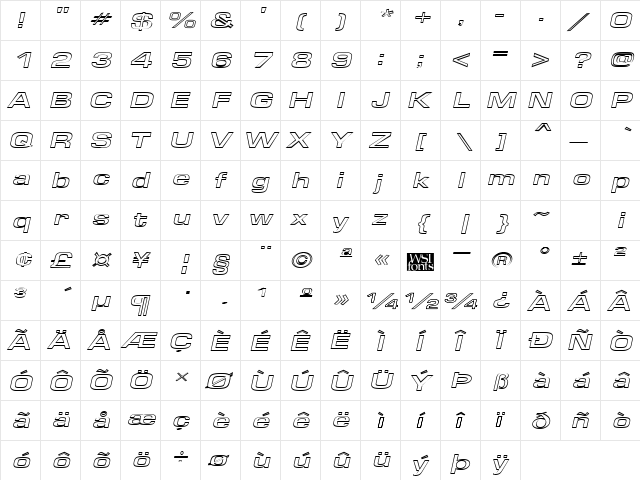
EuroseWideHollow Italic
Design Context for EuroseWideHollow Typeface
EuroseWideHollow offers clean, dependable letterforms without strong stylistic allegiance, making it a practical choice for designers who need flexibility. The dynamic lean of this cut emphasises speed and emphasis in any layout.
Pro Tip: Try EuroseWideHollow for annotation and caption copy alongside an upright companion — the contrast in angle creates a dynamic but ordered typographic system.